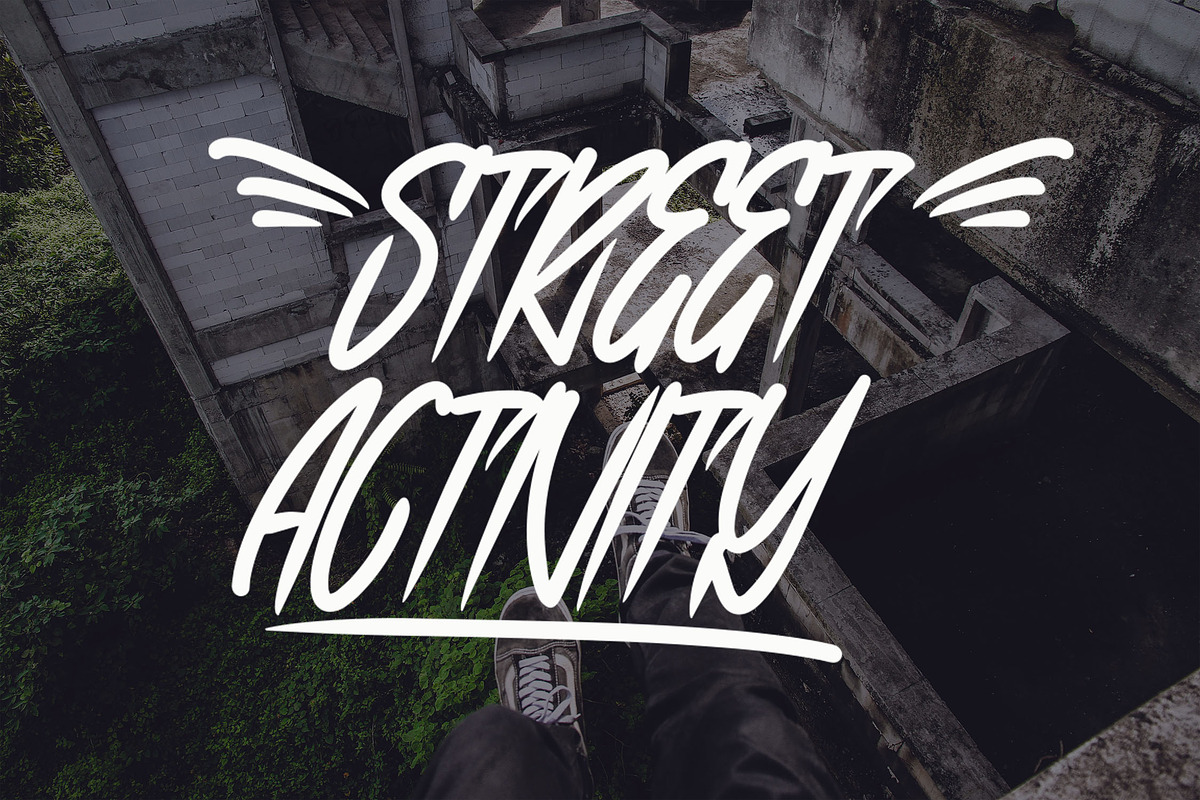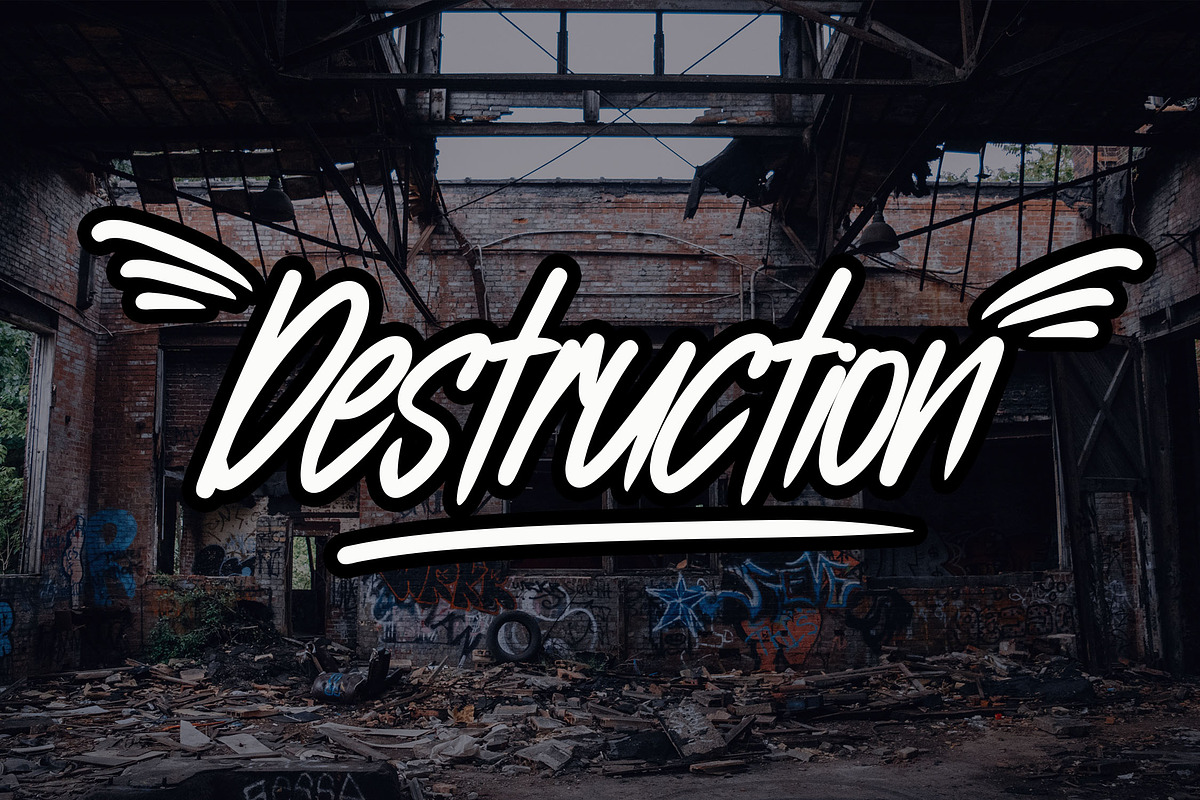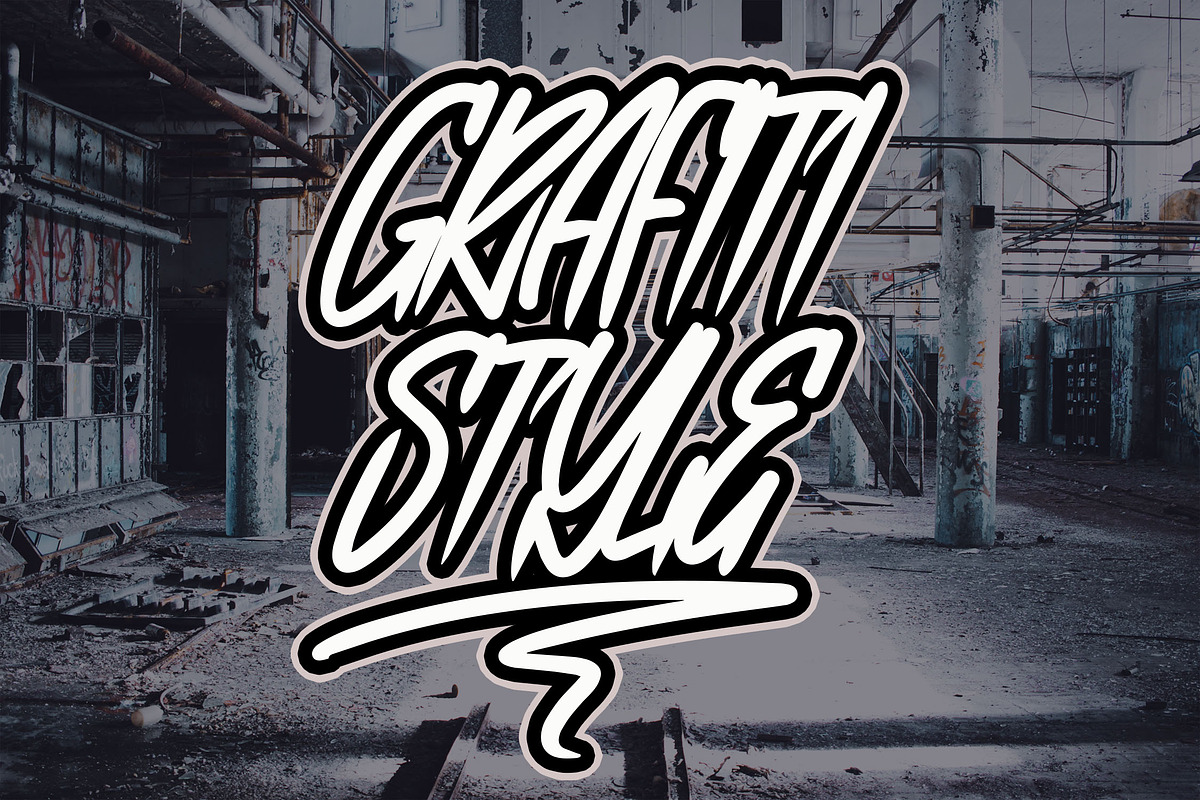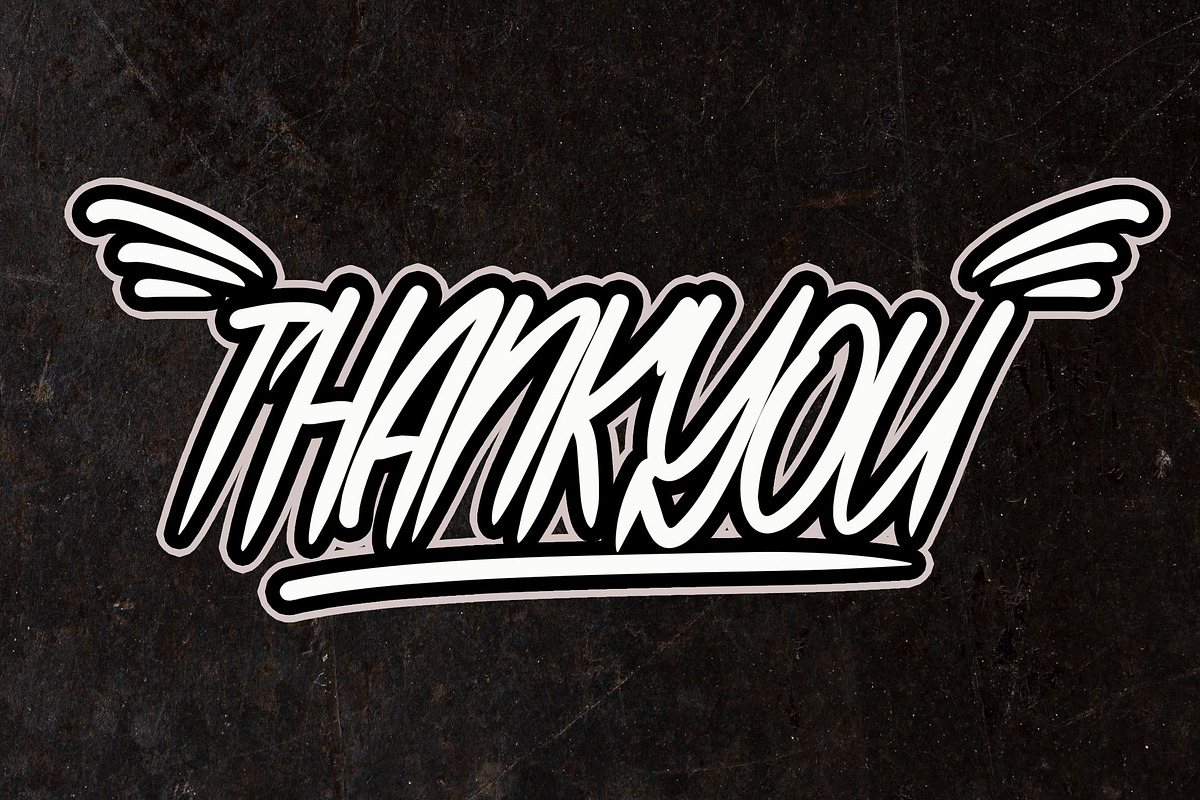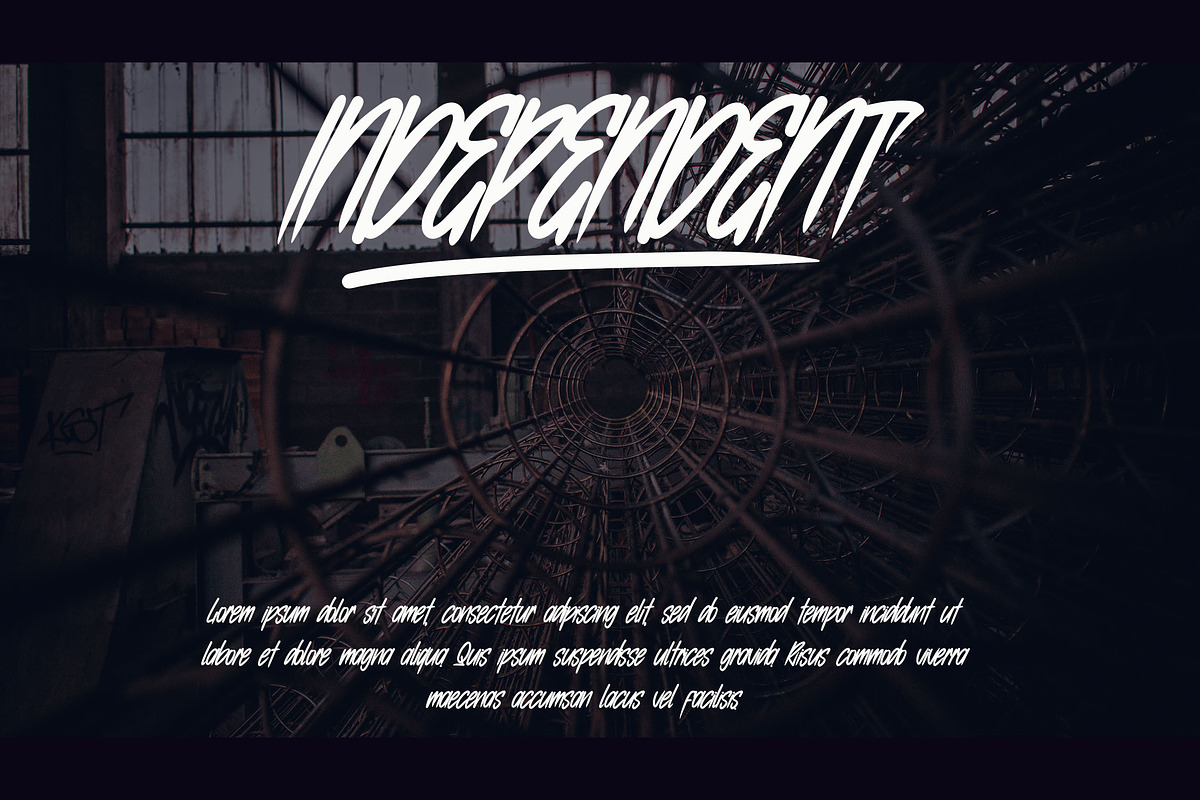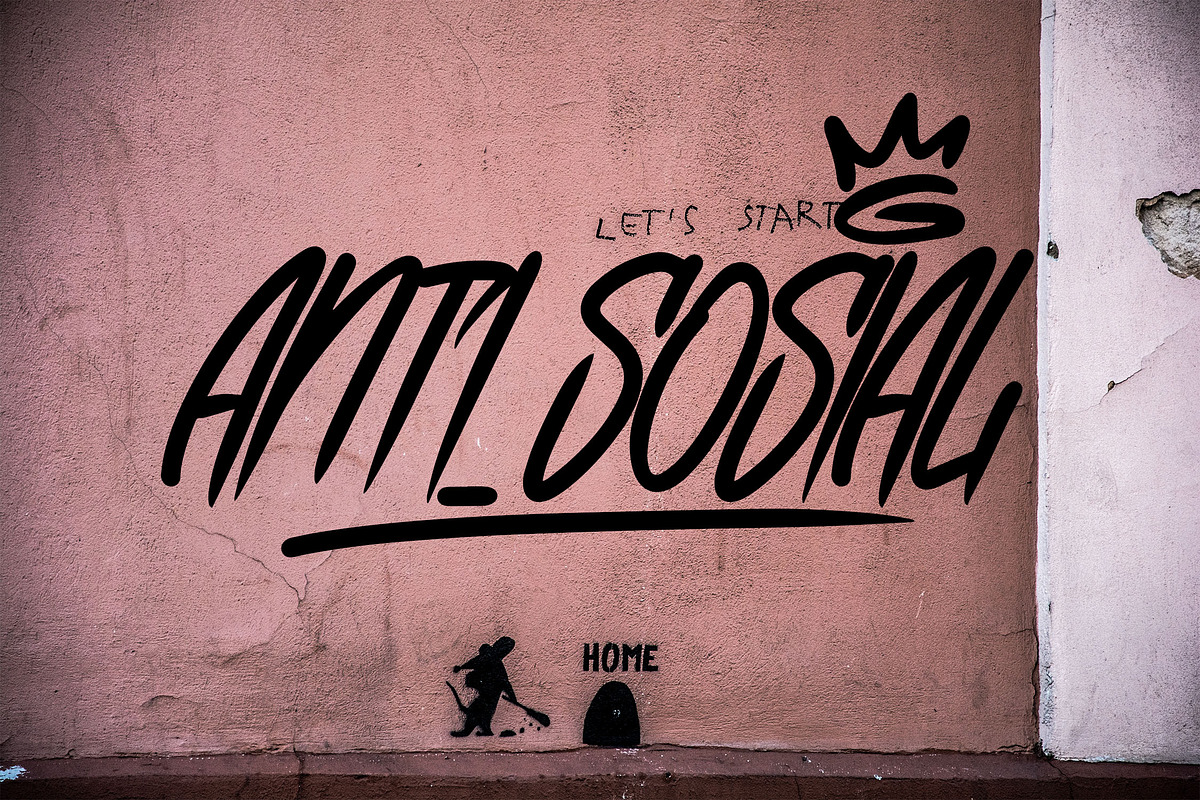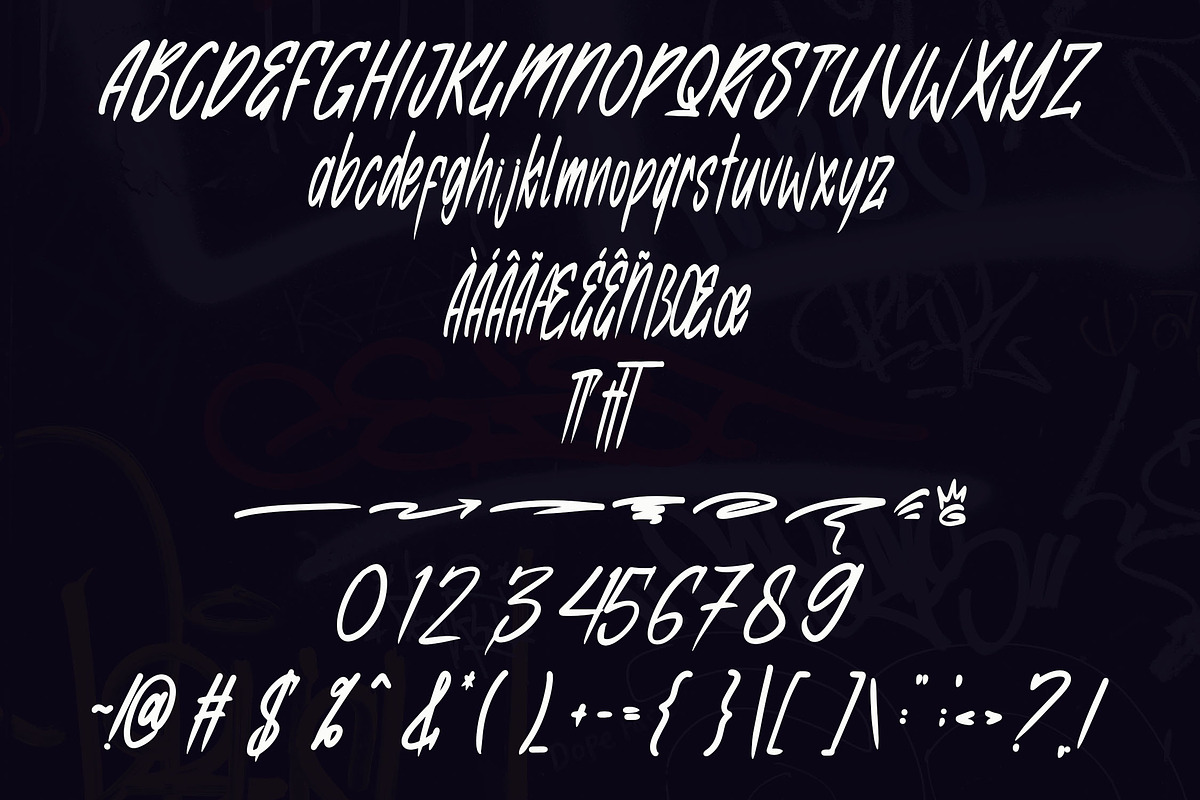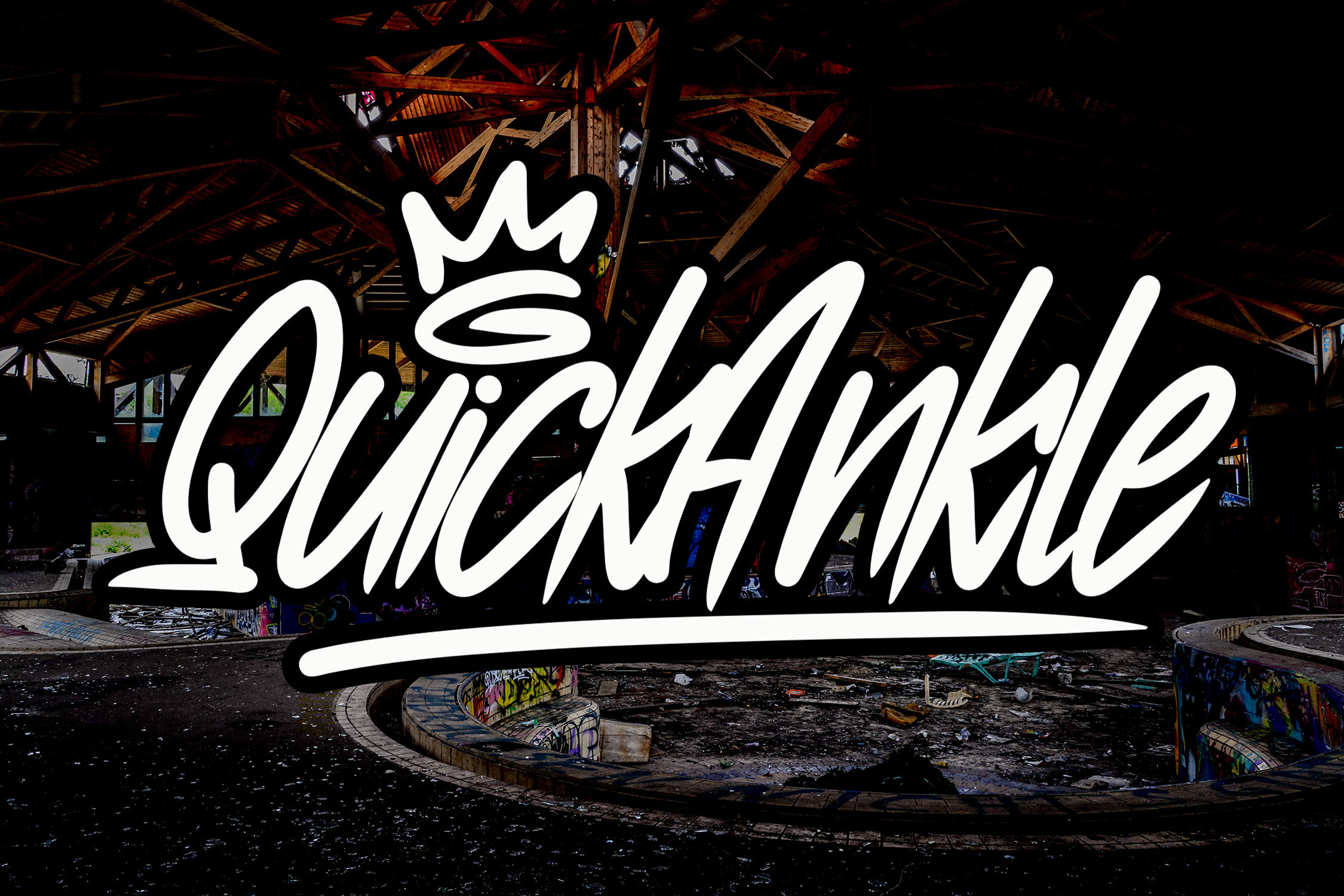
Quick Ankle Brush Font
Quick Ankle is a bold handbrush-style font crafted with unique character shapes to enhance the visual appeal of any design. Its artistic and dynamic strokes make it a perfect choice for logos, branding, posters, and other creative projects.